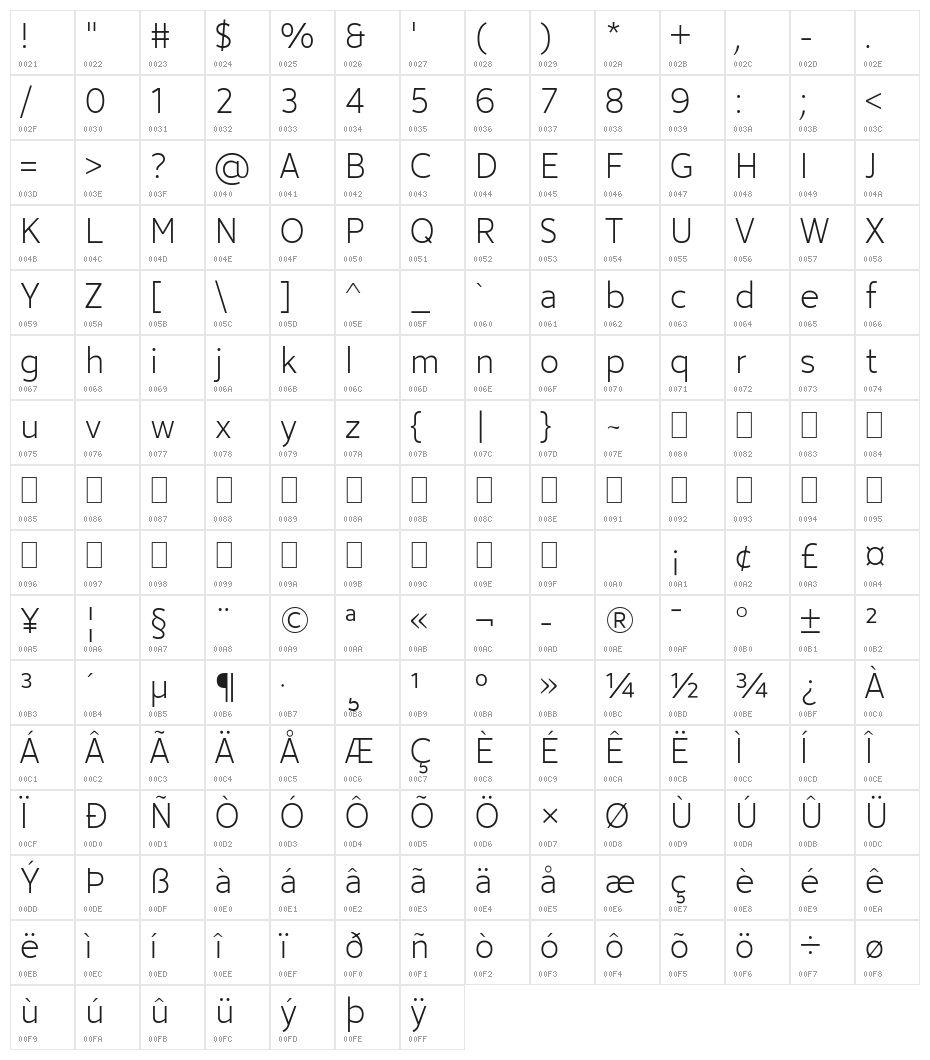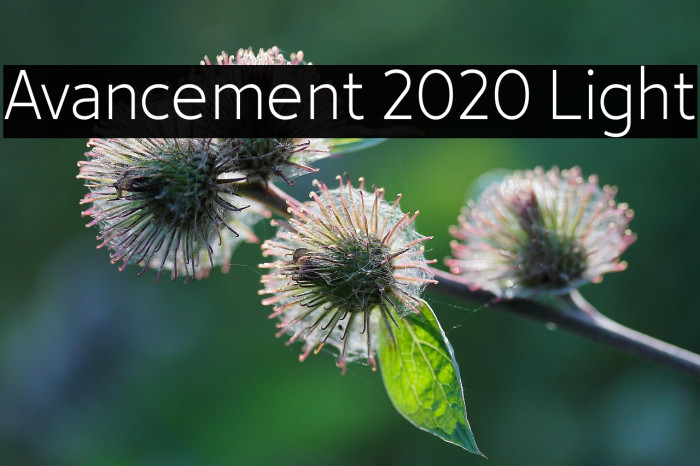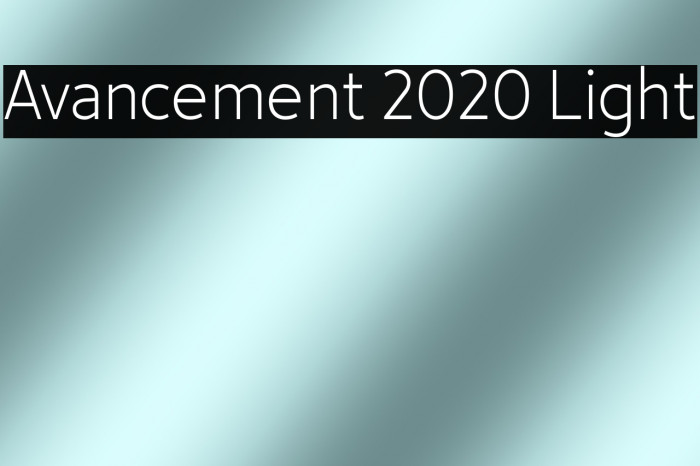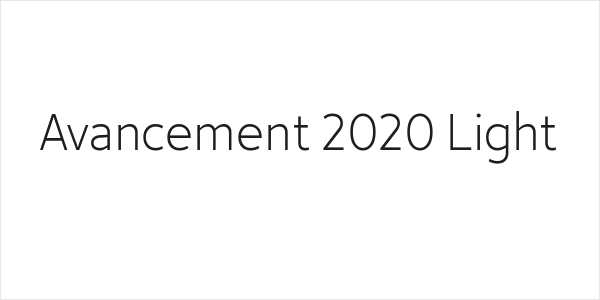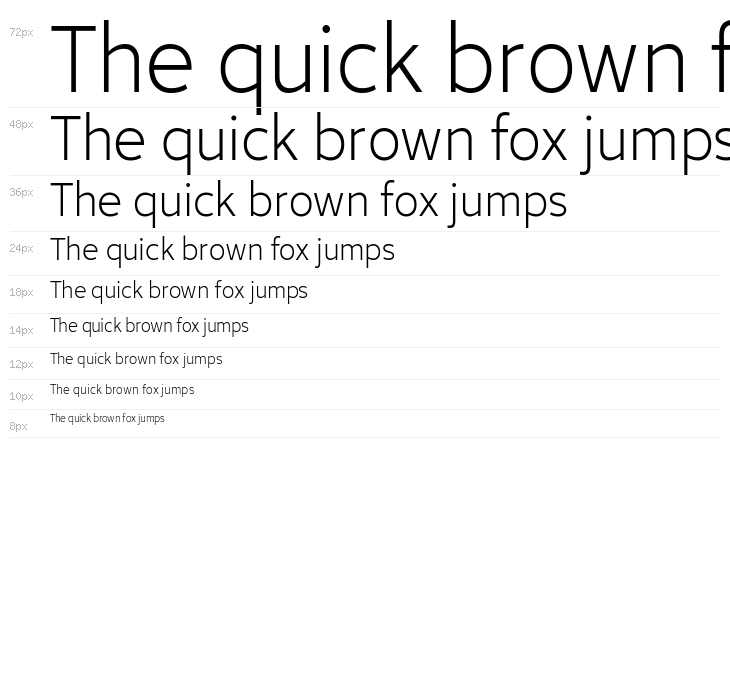
Avancement 2020 Light Font
Avancement 2020 Light Description
This font features a clean and modern sans-serif style with a geometric structure. The characters are evenly spaced, providing a balanced and harmonious appearance. The uppercase letters are tall and slightly narrow, while the lowercase letters maintain a consistent height, contributing to the font's readability. The numbers are clear and distinct, making them suitable for various applications. The special characters are well-defined, ensuring versatility in design projects. Overall, this font exudes a contemporary and professional aesthetic, making it ideal for digital and print media.
| Proposed Projects | Ideal for branding, web design, corporate materials, and editorial layouts. |